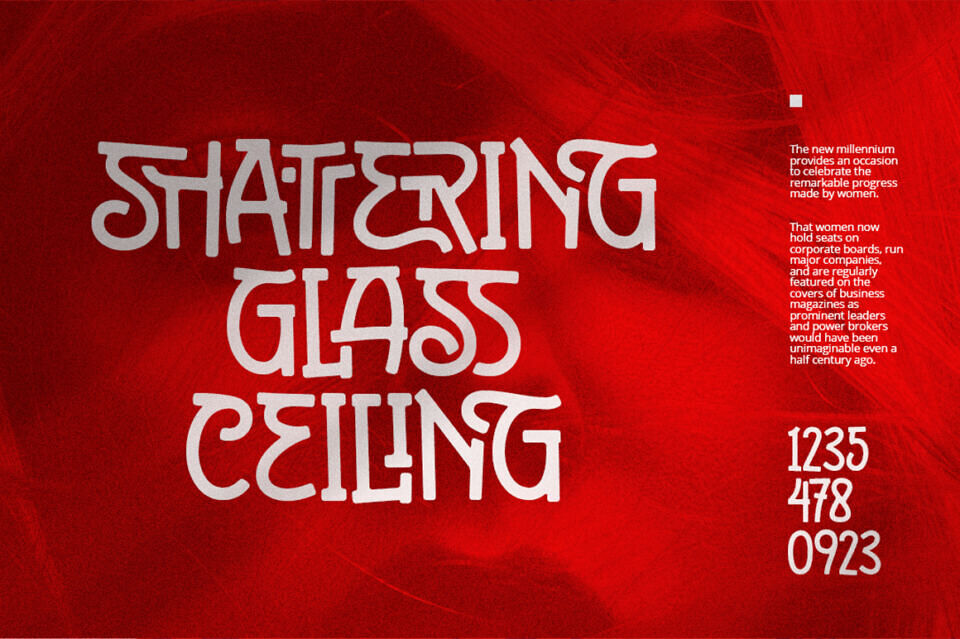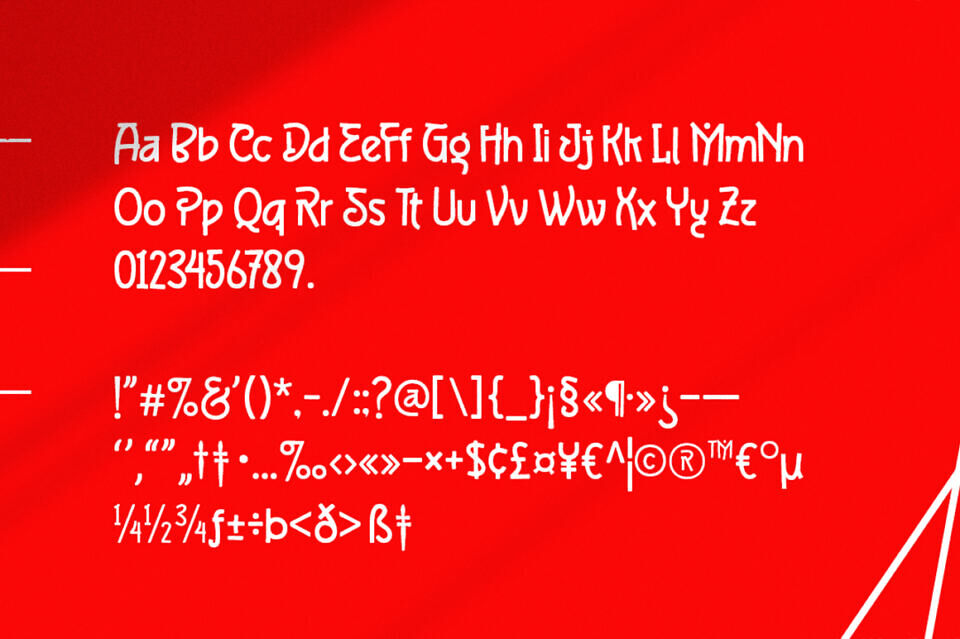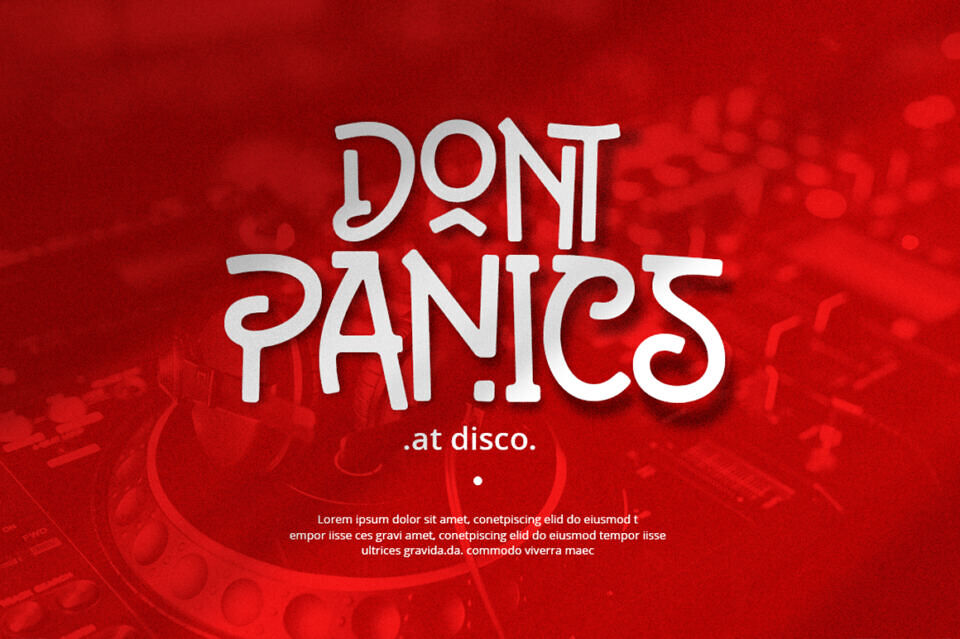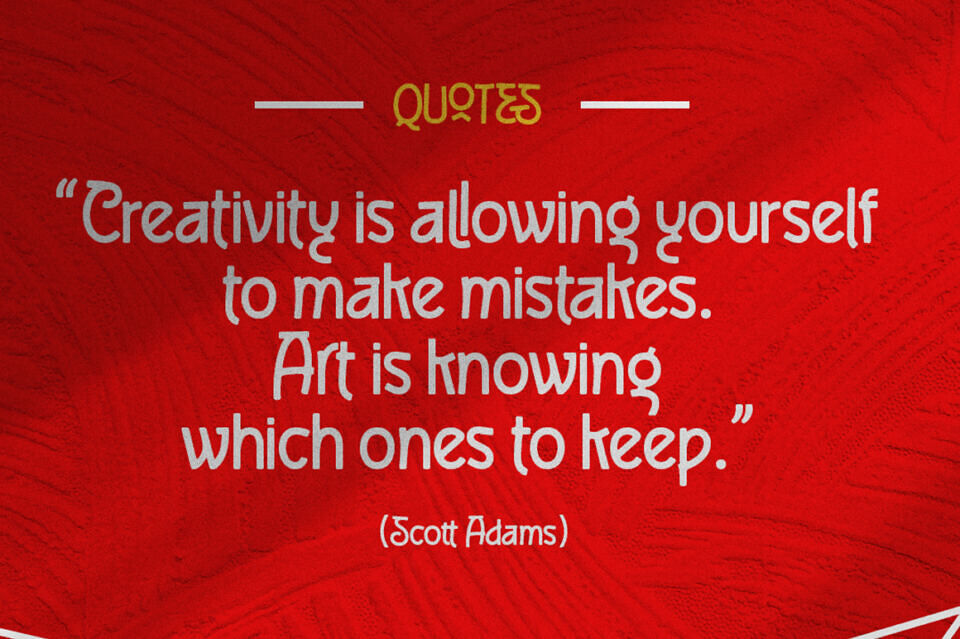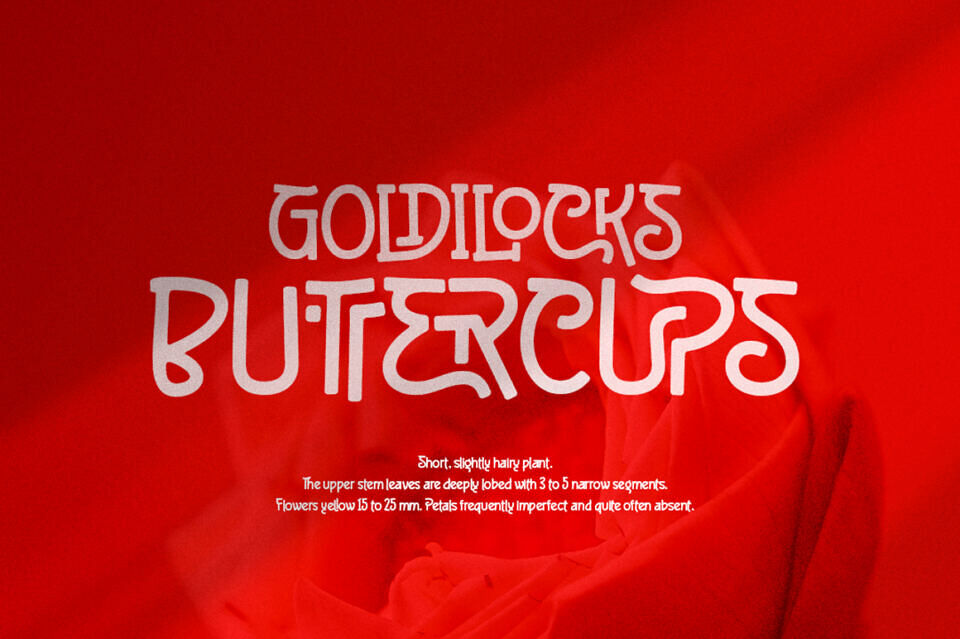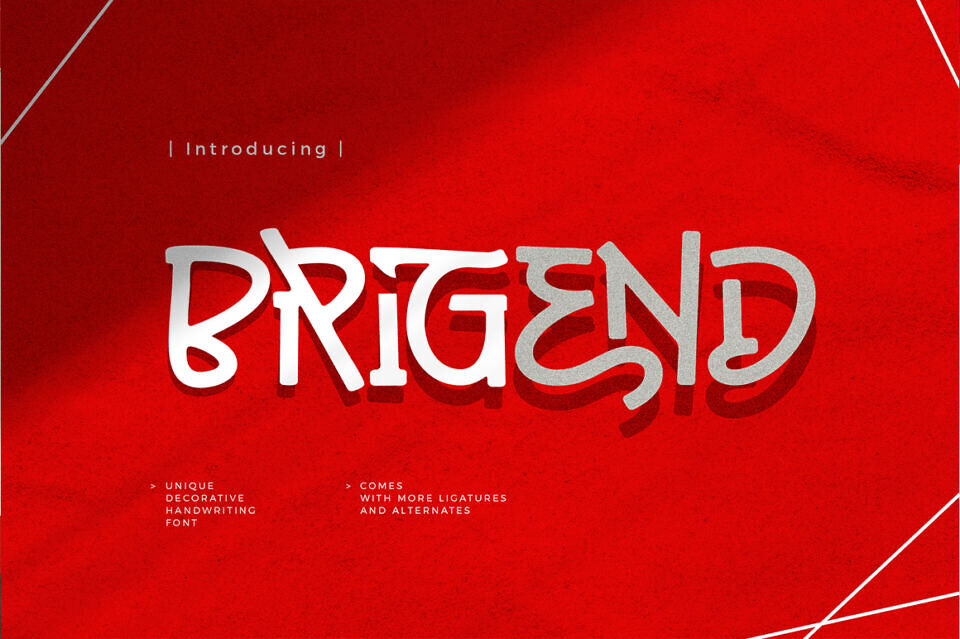
Brigend Font
Brigend is a sophisticated monoline handwriting font that exudes elegance and charm. Crafted with meticulous attention to detail, this font offers a seamless blend of modernity and classic handwriting aesthetics. Each stroke is carefully crafted to maintain consistency and fluidity throughout, creating a polished and refined appearance.